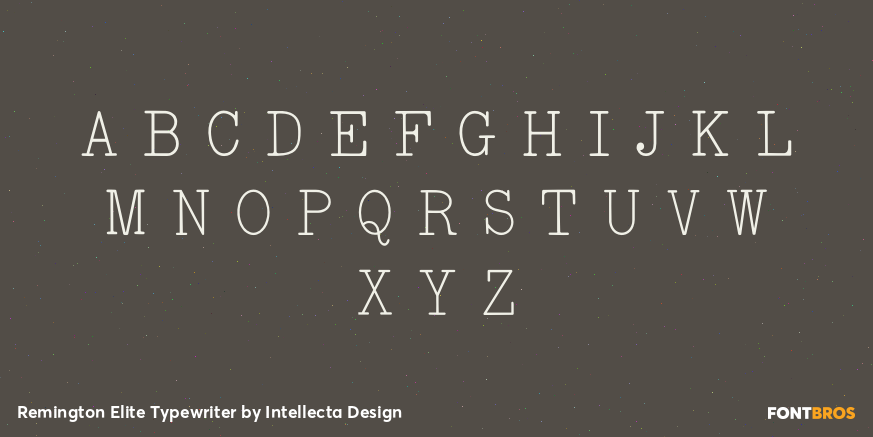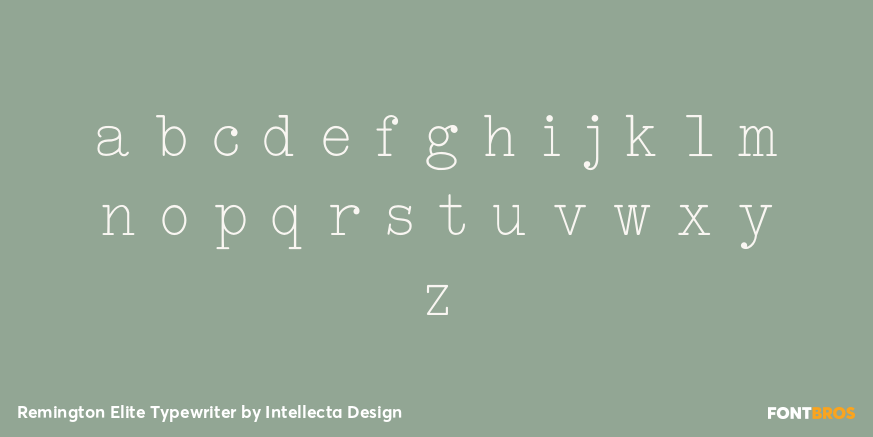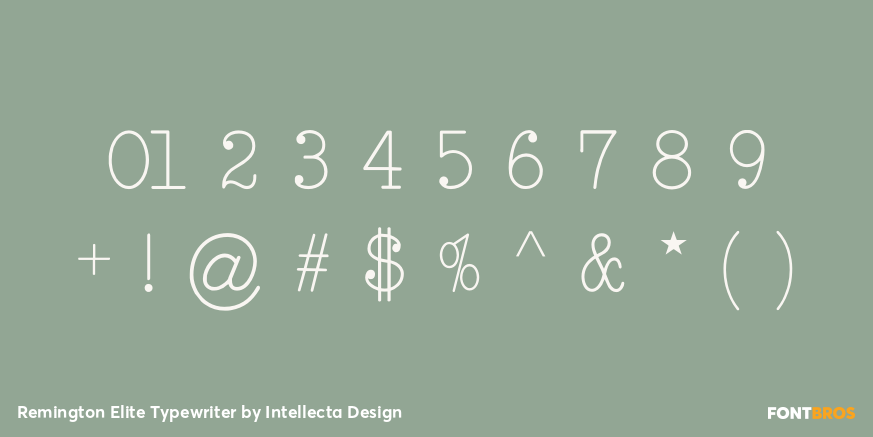
Remington Elite Typewriter
Remington Elite Typewriter is a monospaced typewriter-style serif family with a crisp, mechanical rhythm and a distinctly vintage voice. Its clean lines, slab serif structure, and old-style character give it the look of classic machine typing while keeping the overall impression precise, legible, and controlled.
This family includes 3 styles—Regular, Bold, and Underscore—offering a small but useful range for layered typewriter effects, emphatic headings, and editorial touches. The bold weight adds extra impact, while the underscore style leans into the nostalgic utility of typed documents.
A strong choice for retro branding, packaging, posters, printed ephemera, and display work that benefits from a traditional industrial feel, it brings personality without losing readability. For projects that need a formal, vintage, or typewritten tone, this family delivers a focused and recognizable texture.